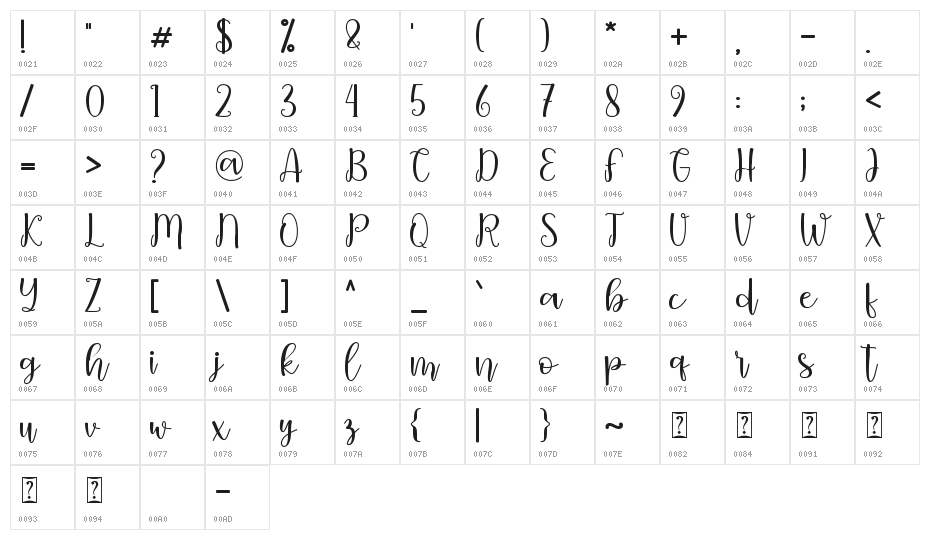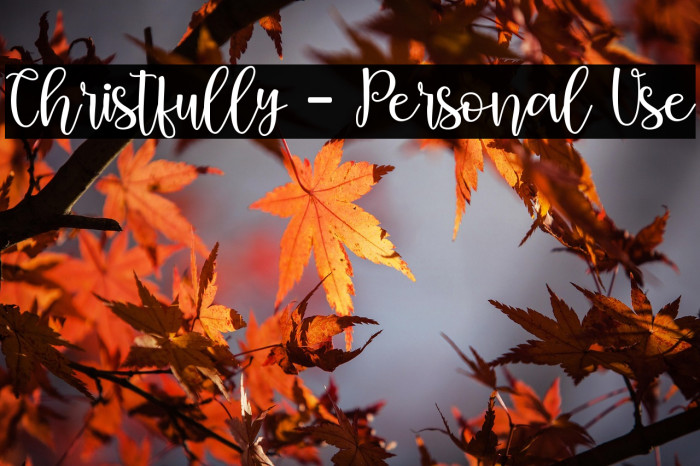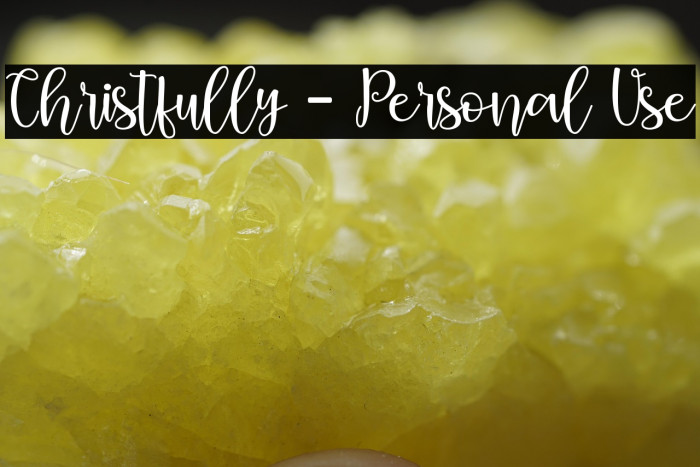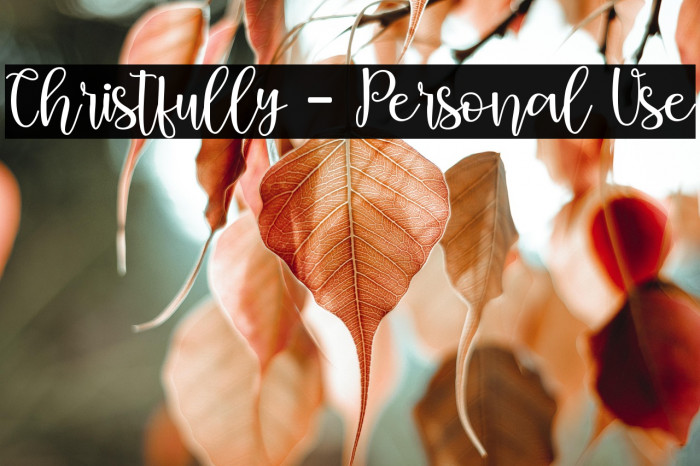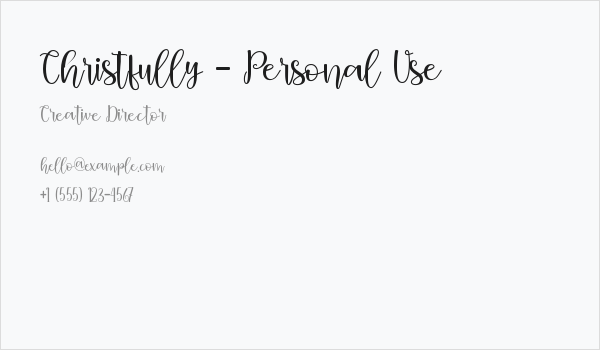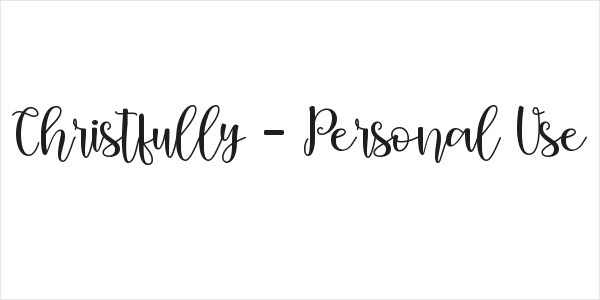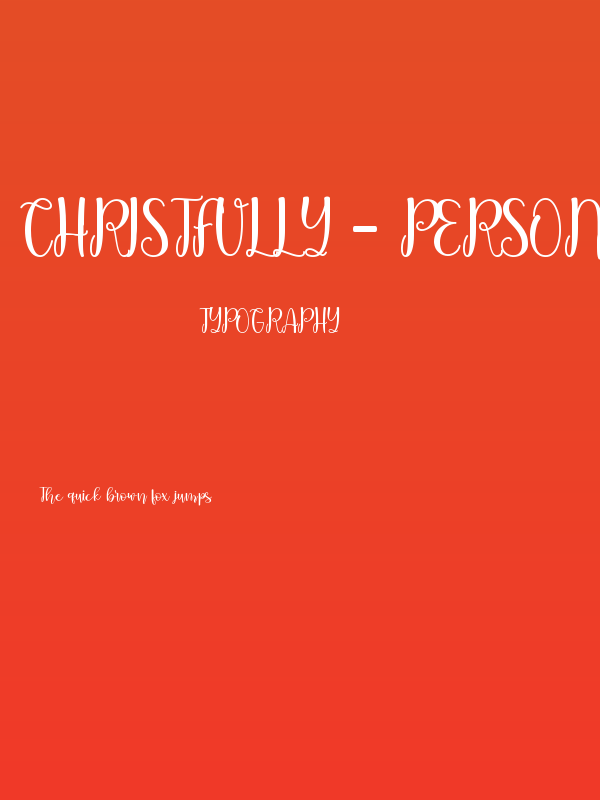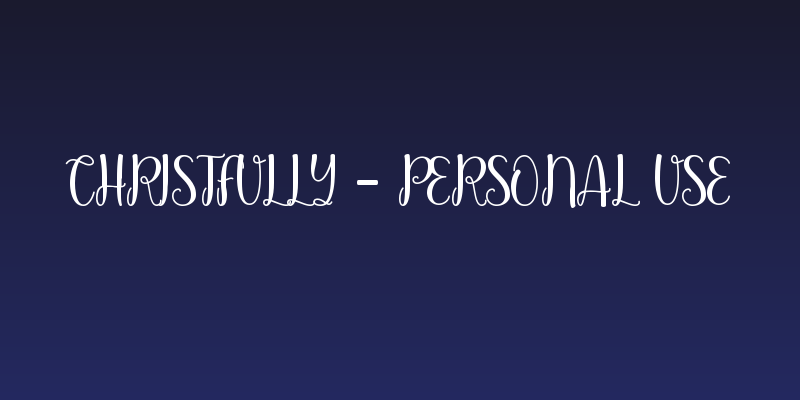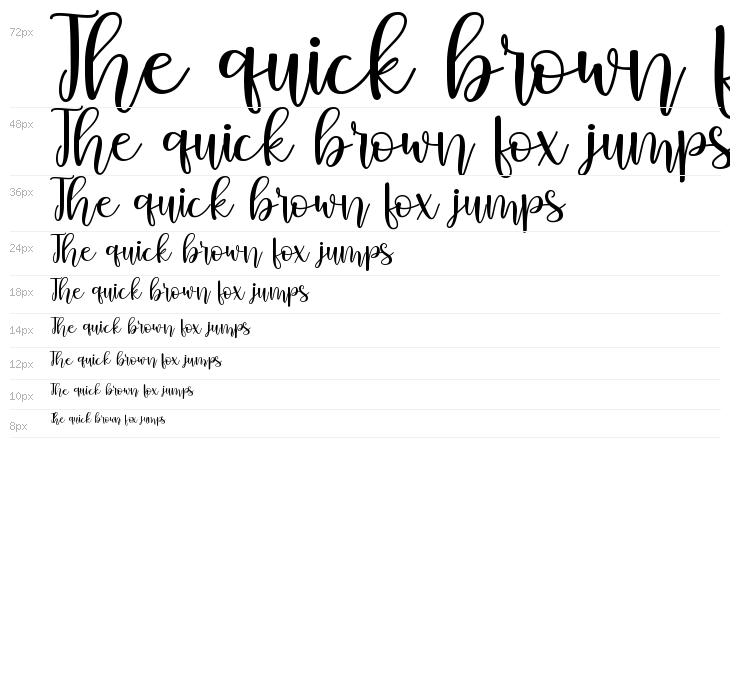
Christfully - Personal Use Font
Christfully - Personal Use Description
This font features a playful and elegant script style with a handwritten appearance. The letters are characterized by smooth, flowing curves and loops, giving it a whimsical and artistic feel. The uppercase letters are tall and slender, while the lowercase letters maintain a consistent height with a slight slant, enhancing the casual yet sophisticated look. The numerals are distinct and easy to read, complementing the overall style. Special characters are creatively designed, adding to the font's versatility. This font is ideal for projects that require a personal touch, such as invitations, greeting cards, and branding materials.